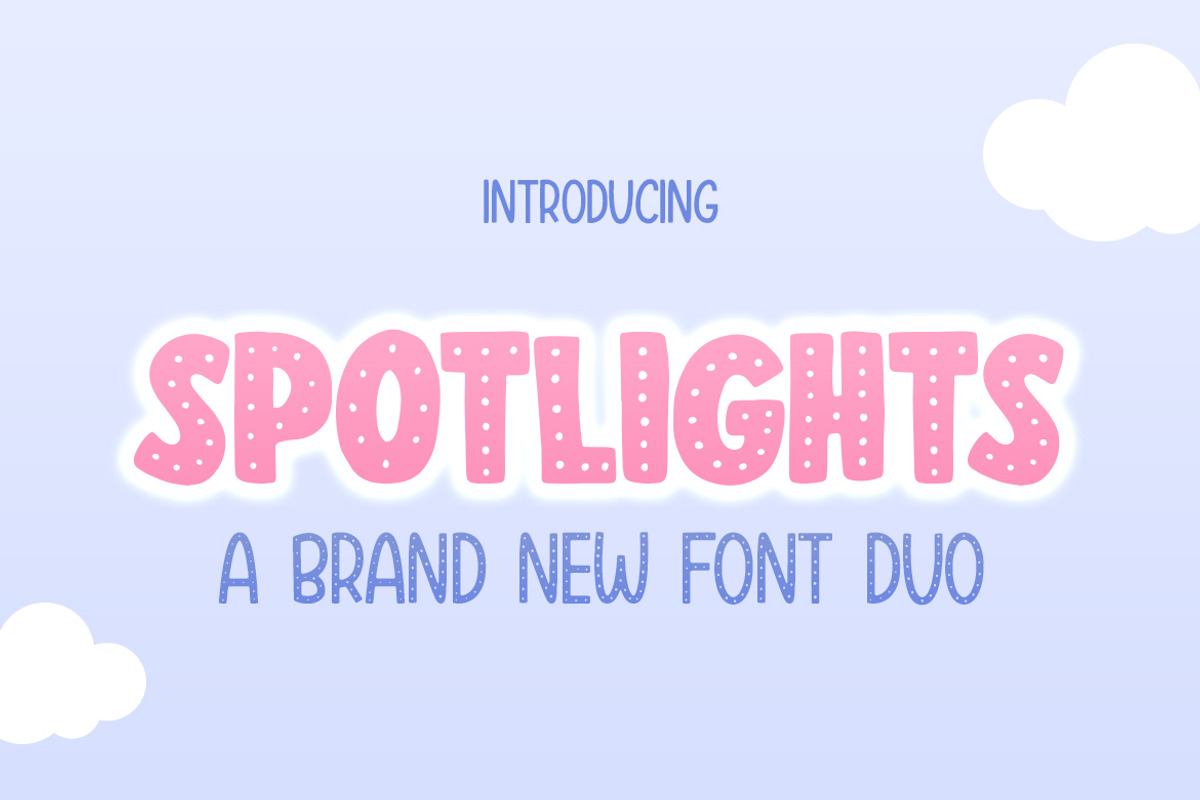
Introducing Spotlights Font Duo Free Download, a versatile pair of typefaces designed to elevate your creative projects. This duo typically combines a script font with a complementary sans-serif or serif typeface, offering flexibility and harmony in design. Ideal for branding, logos, invitations, and various other design applications, the Spotlights Font Duo adds a touch of elegance and modernity to your work. Download Spotlights Font Duo Free Download to explore its features in personal projects. For commercial use, please ensure you purchase the appropriate license. Enhance your designs with the stylish and adaptable Spotlights Font Duo Free Download